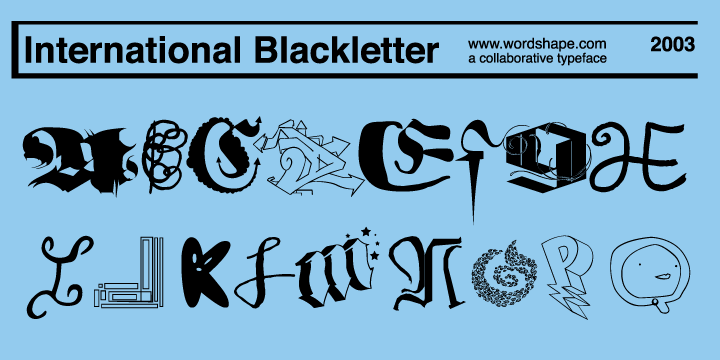
International Blackletter is a collaborative display typeface designed for fun.
What was the inspiration for designing the font? I wanted to curate a lone typeface that collected the work of a number of my favorite designers and artists. All were kind enough to create a custom letter for this font as follows: More…
Ed Fella ($), Catherine Guiral de Trenqualye (0), E*vax (1), Marc Arsenault (2), Mr. Keedy (3), Carole Ambauen (4), David D'Andrea (5), William McCurtin (6), Urs Lehni (7), Doug Rogers (8), Marc Bell (9), AHF (A), Jennifer Benitez(B), Cody Hudson/Struggle Inc. (C), Renos (D), E*Rock (E), Susan Farrell (F), Tauba Auerbach (G), Selena Hoy (H), Jeff Durham (I), J.D. Davis (J), Mumbleboy (K), Megan Gnekow (L), Manny Roldan (M), Randy Nakamura (N), Griffin McPartland (O), Ian Lynam (P), Snowee D. Bear (Q), Maria Lynam (R), Dennis Tyfus (S), Darren Tuozzoli (T), Chris Maas (U), Andrew Jeffrey Wright (V), Dave Nason (W), Riley Swift (X), Dave Choe (Y), Abby Dansiger (Z), Brian Roettinger (FI), Mark Kulakoff(AE), Jeri Blocker (?), Jen Budke (@), Megan McGinley (*).
What are its main characteristics and features? It is kind of a mess, but there are some interesting ideas within.